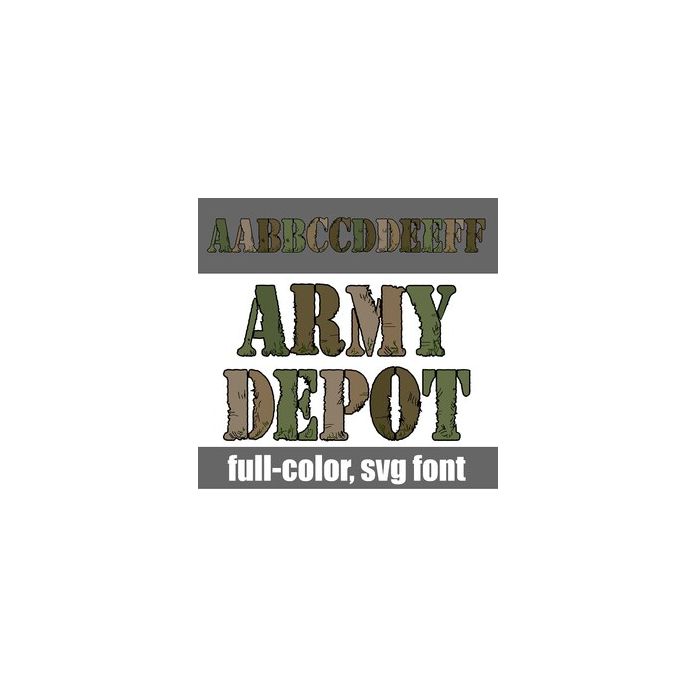
This full-color font features beat up stencil lettering in a military color palette. There is an alt case w/ additional colors you can access through your system or Silhouette's glyph map.